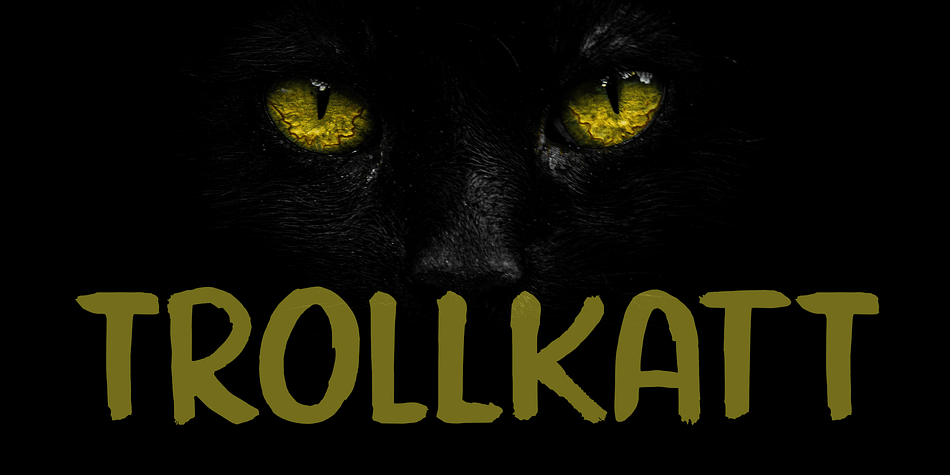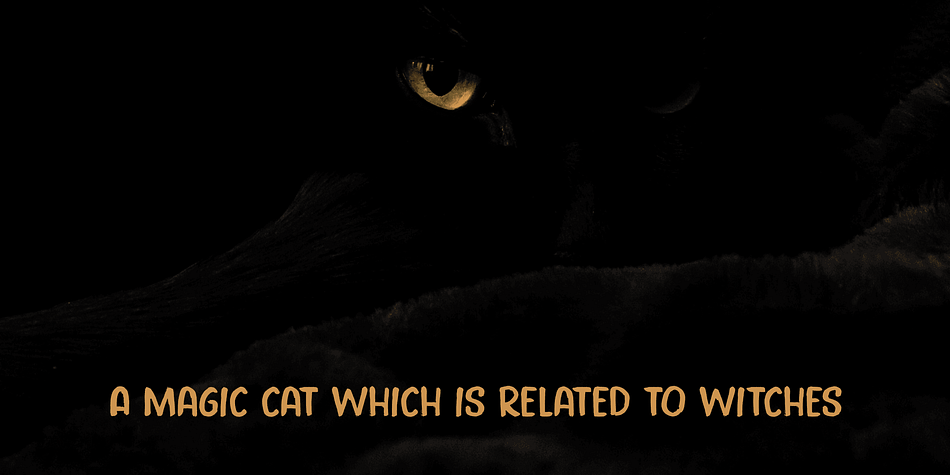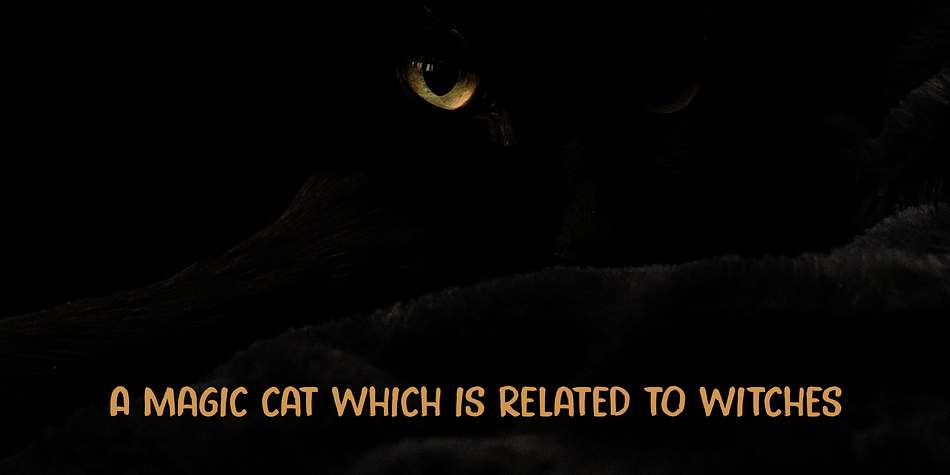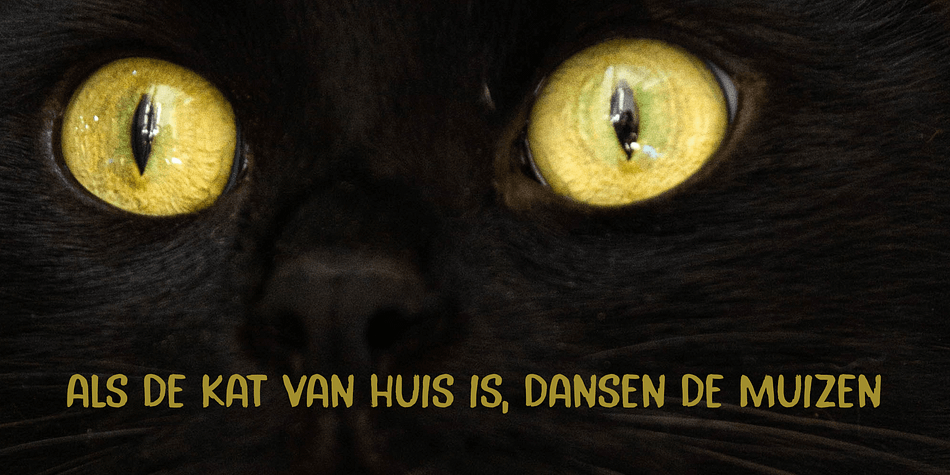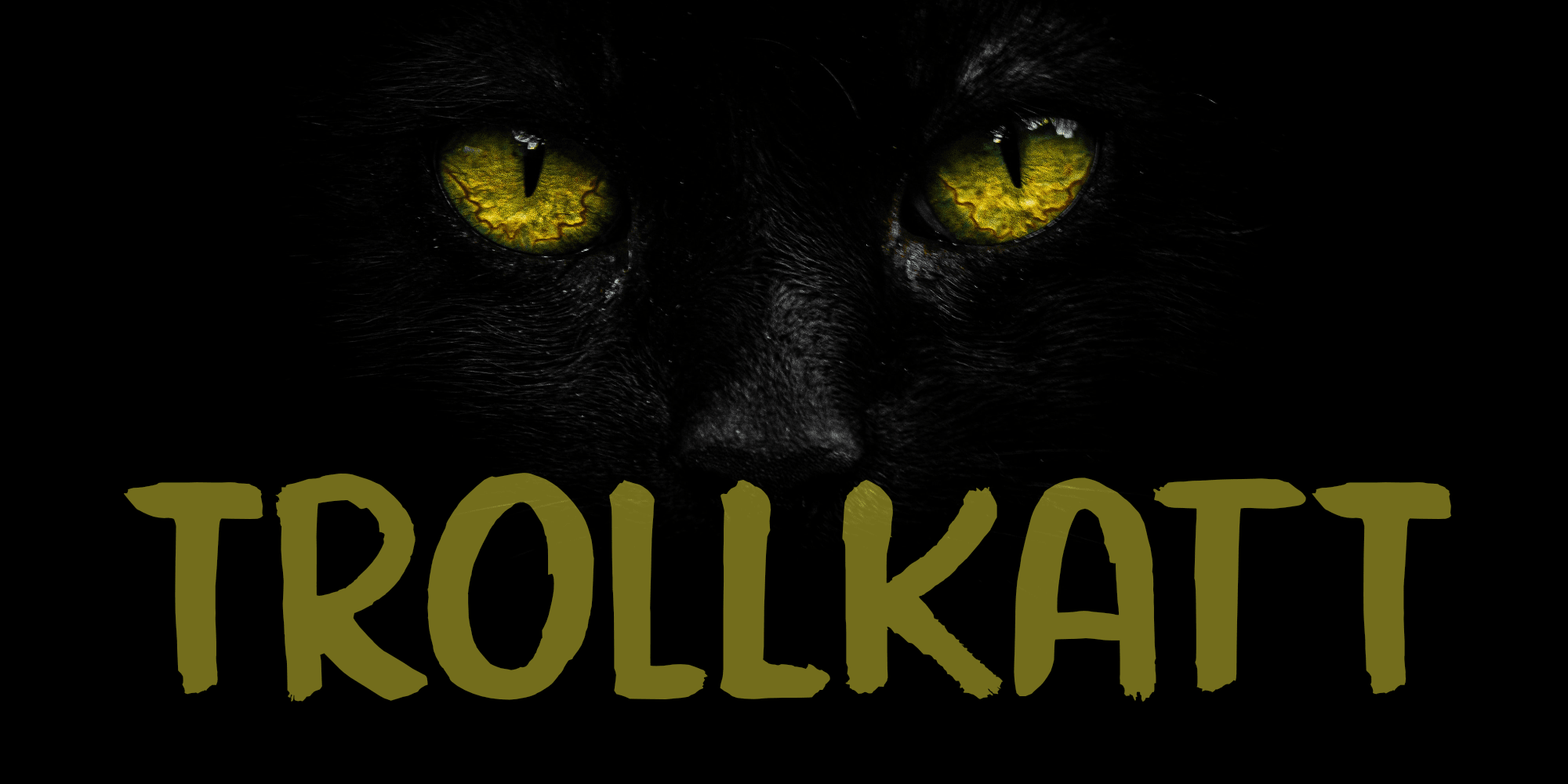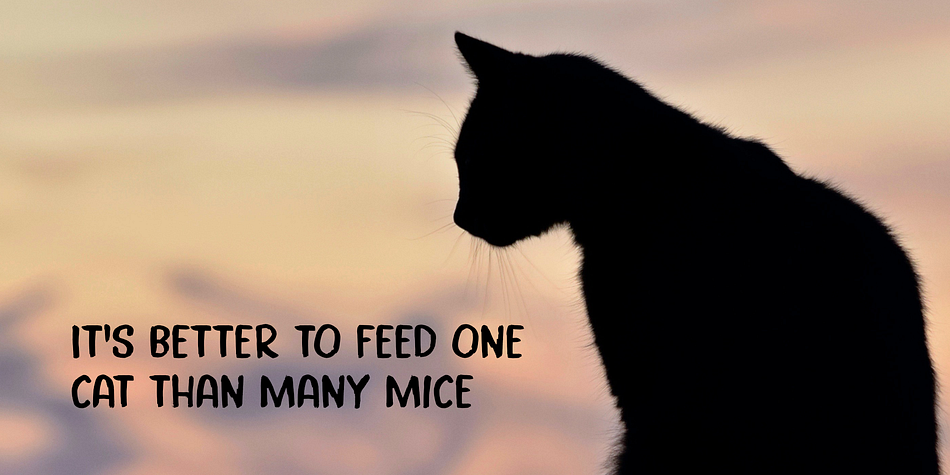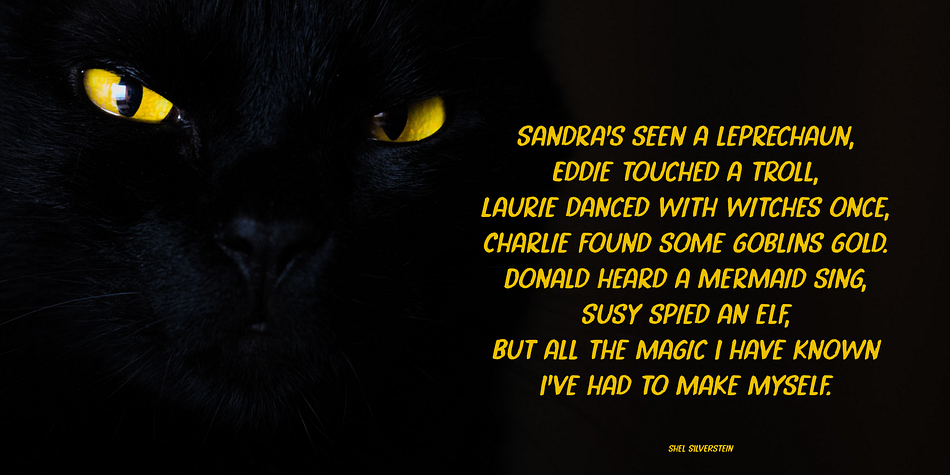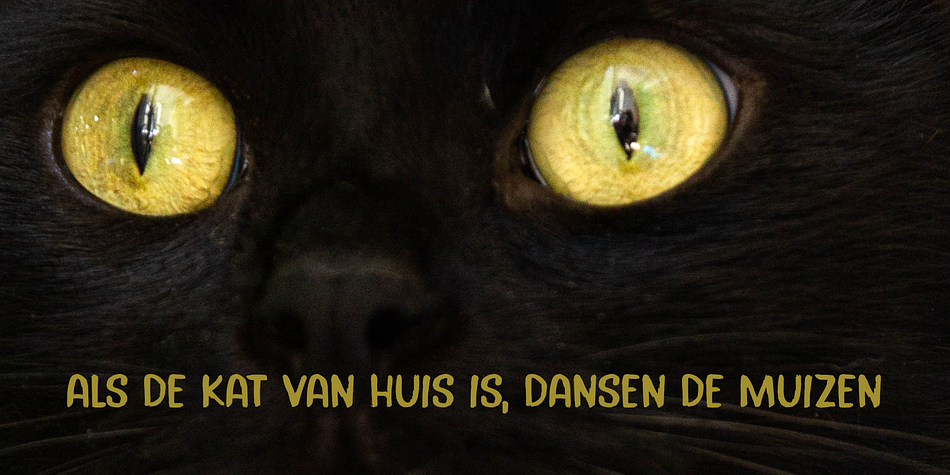
Trollkatt
Designed by David Kerkhoff, Trollkatt is a display sans and hand display font family. This typeface has two styles and was published by Hanoded.
A Trollkatt in Norwegian myth, is the cat associated with witches. The last few days a stray ginger cat seems to have adopted us - she comes into the house, lies down on the carpet and loves the cat food we bought her. We have posted some ‘found a cat’ messages online and hung op some flyers - just in case someone is missing a cat.
Because of the stray, I decided that I should name this font something cattish, so Trollkatt is what popped up. The font is quite nice; I made it with my Chinese ink and a brush, from which I cut most of the hairs.
This font won’t catch mice, but it will put some magic into your designs! And the stray cat… well, if she isn’t chipped and no one comes to fetch her, we will keep her. #happyending